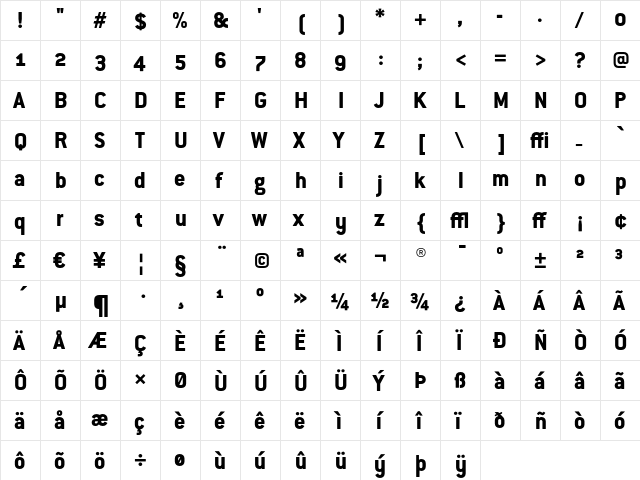
ConduitOSITC ExtraBold Font Preview
Design Context for ConduitOSITC Typeface
ConduitOSITC takes a measured approach to typography — its balanced proportions and neutral character make it a reliable workhorse for both digital and print work. The heavy weight commands attention and anchors typographic hierarchies. The condensed width makes it efficient for tight spaces without sacrificing legibility.